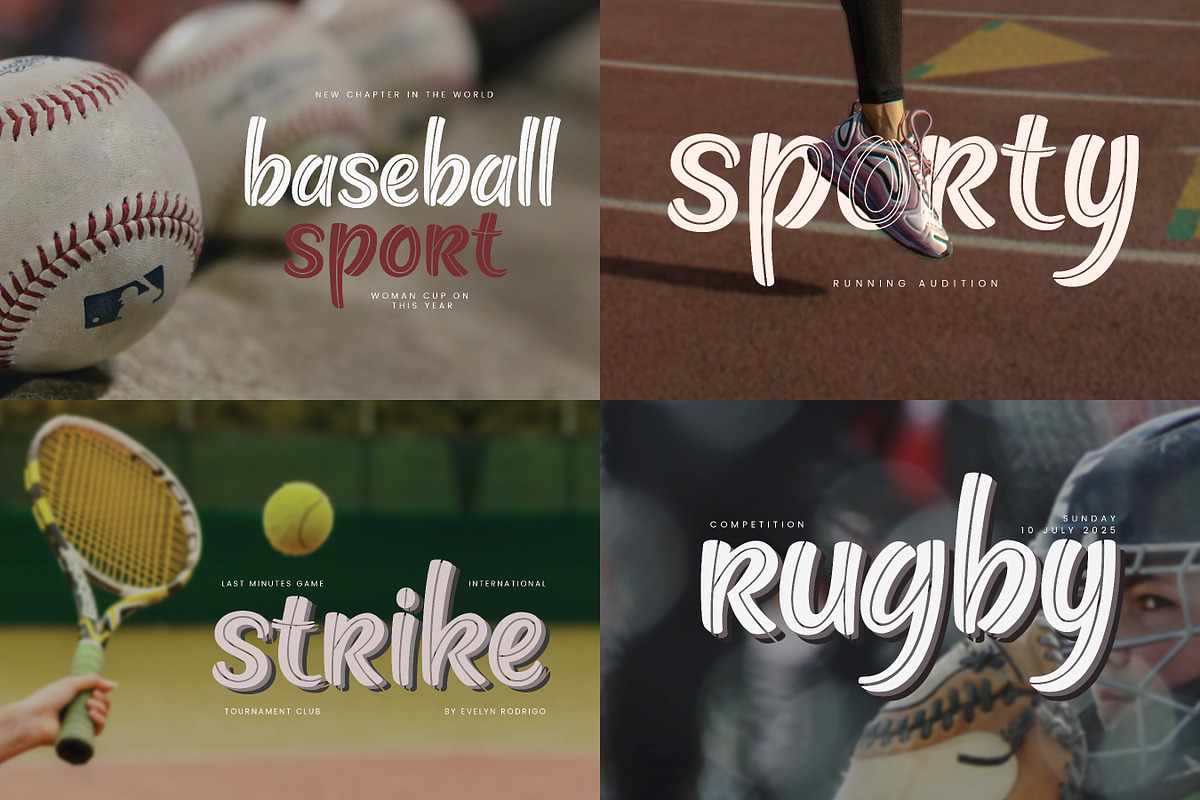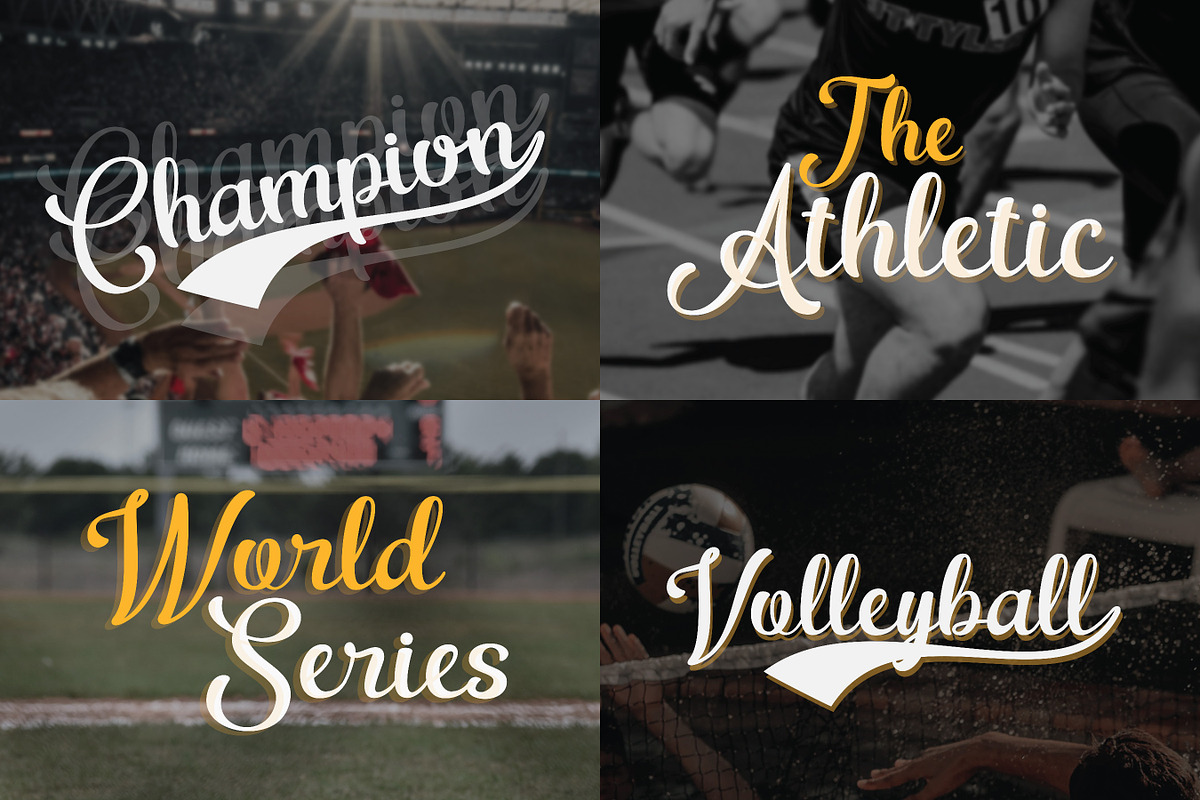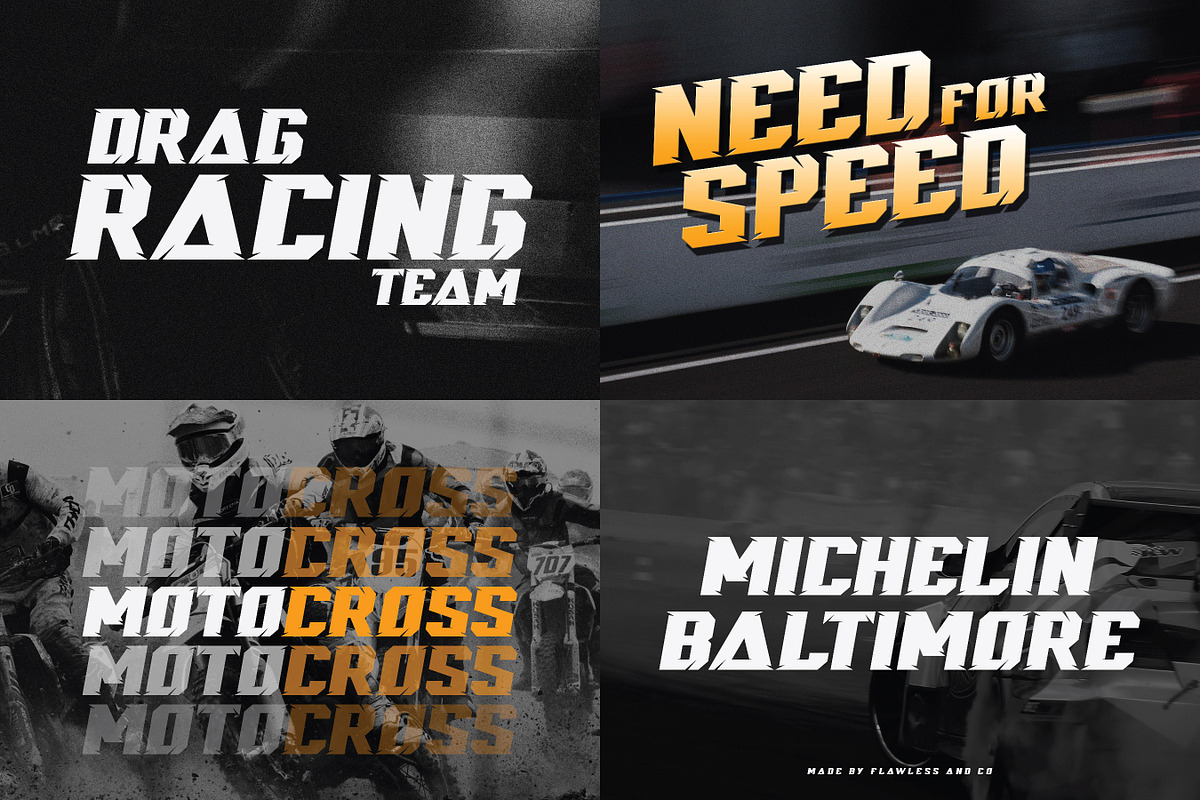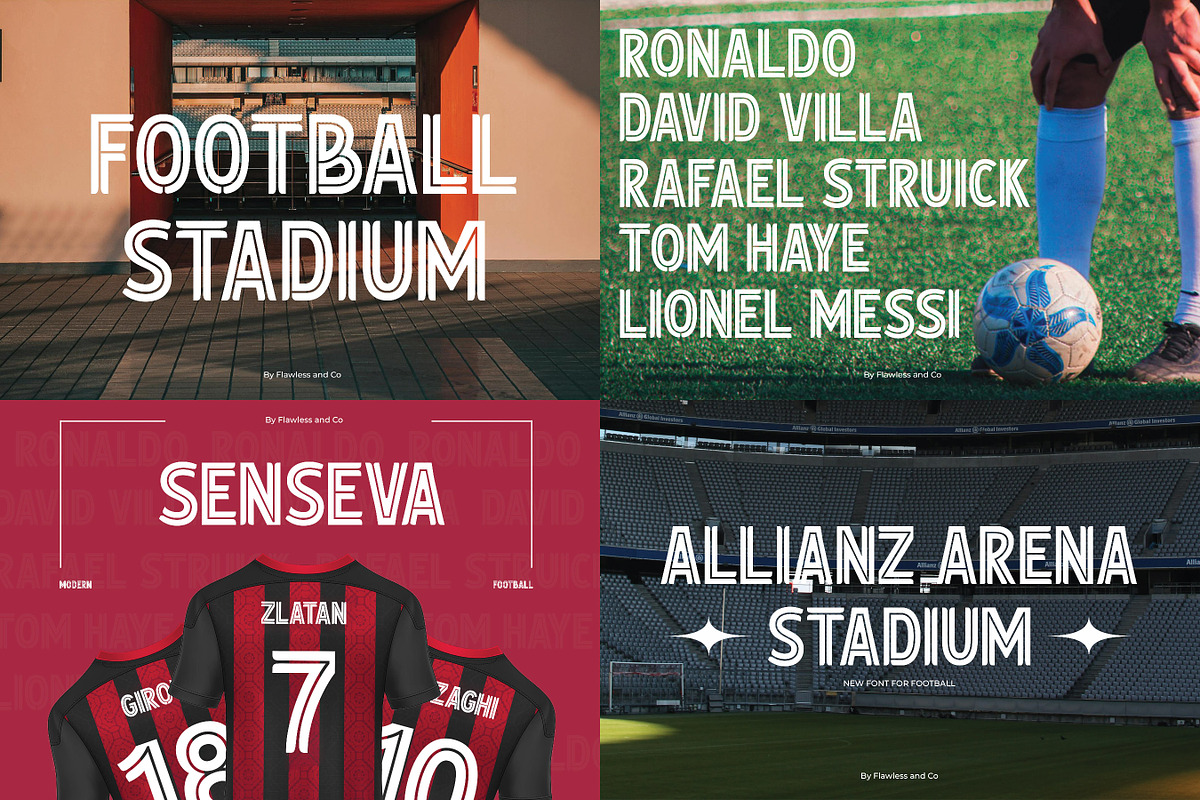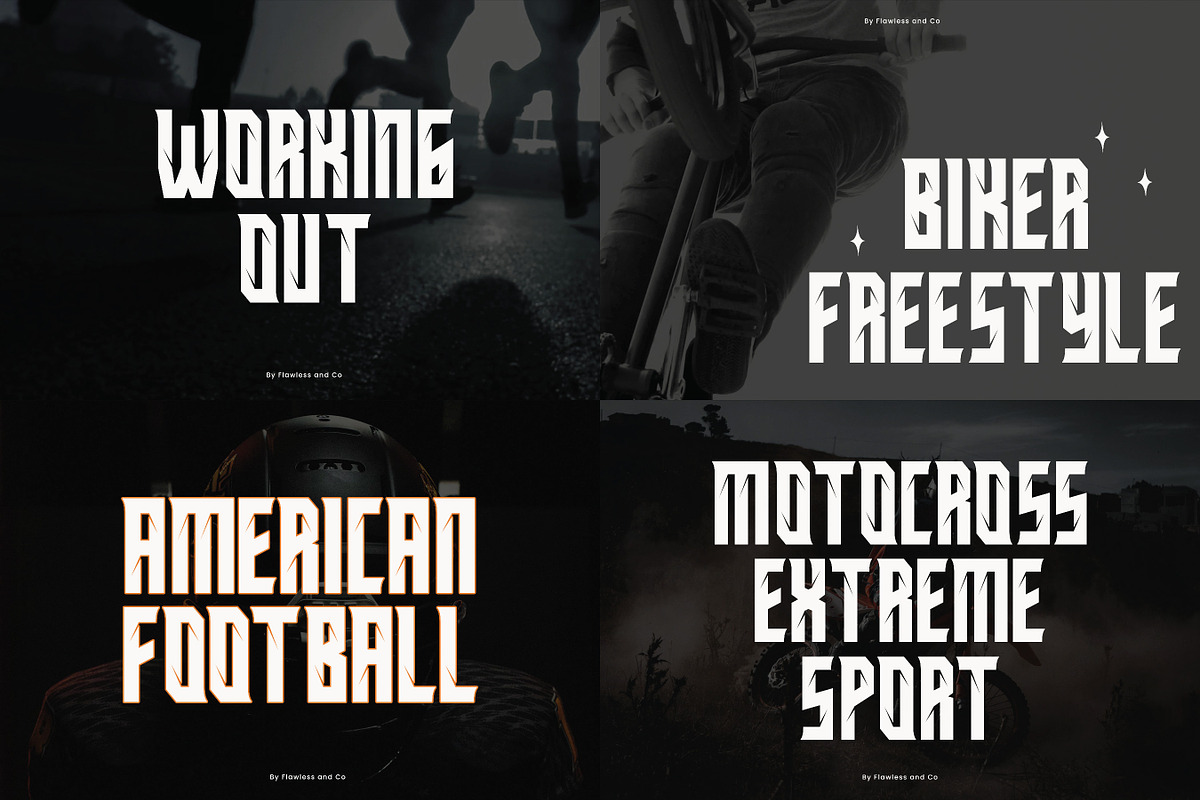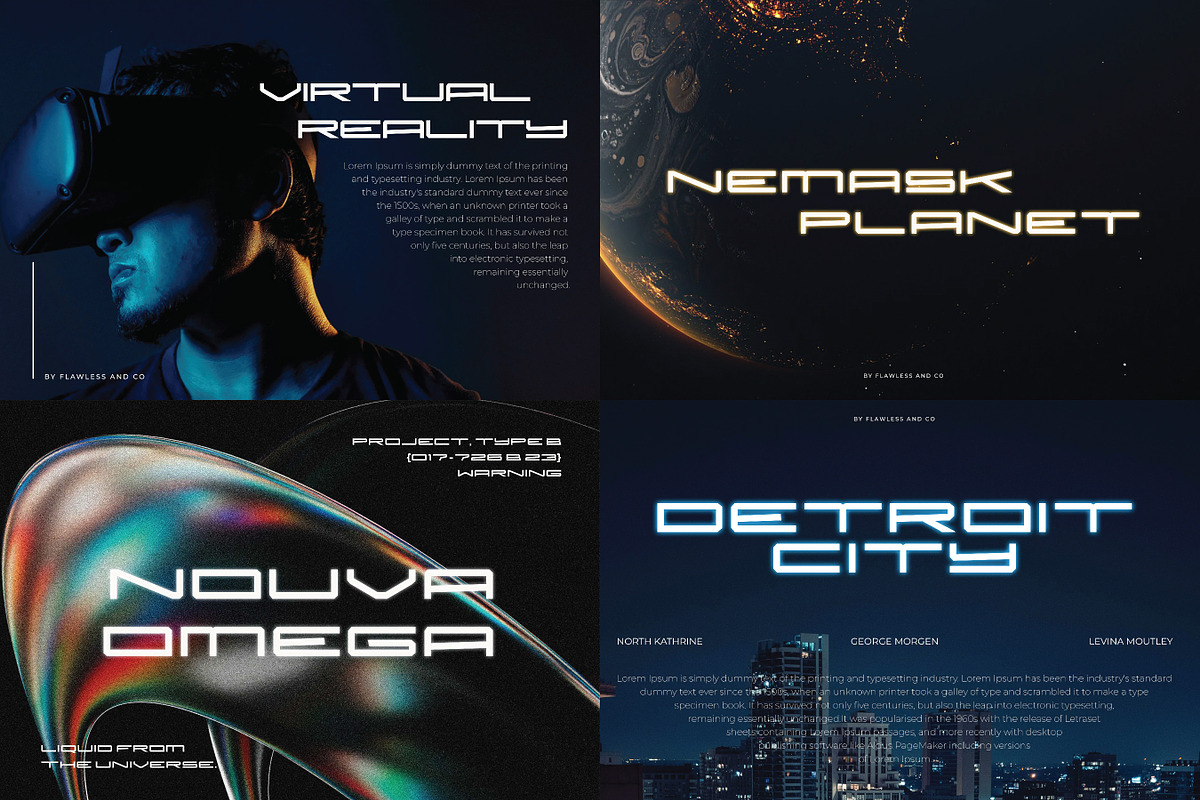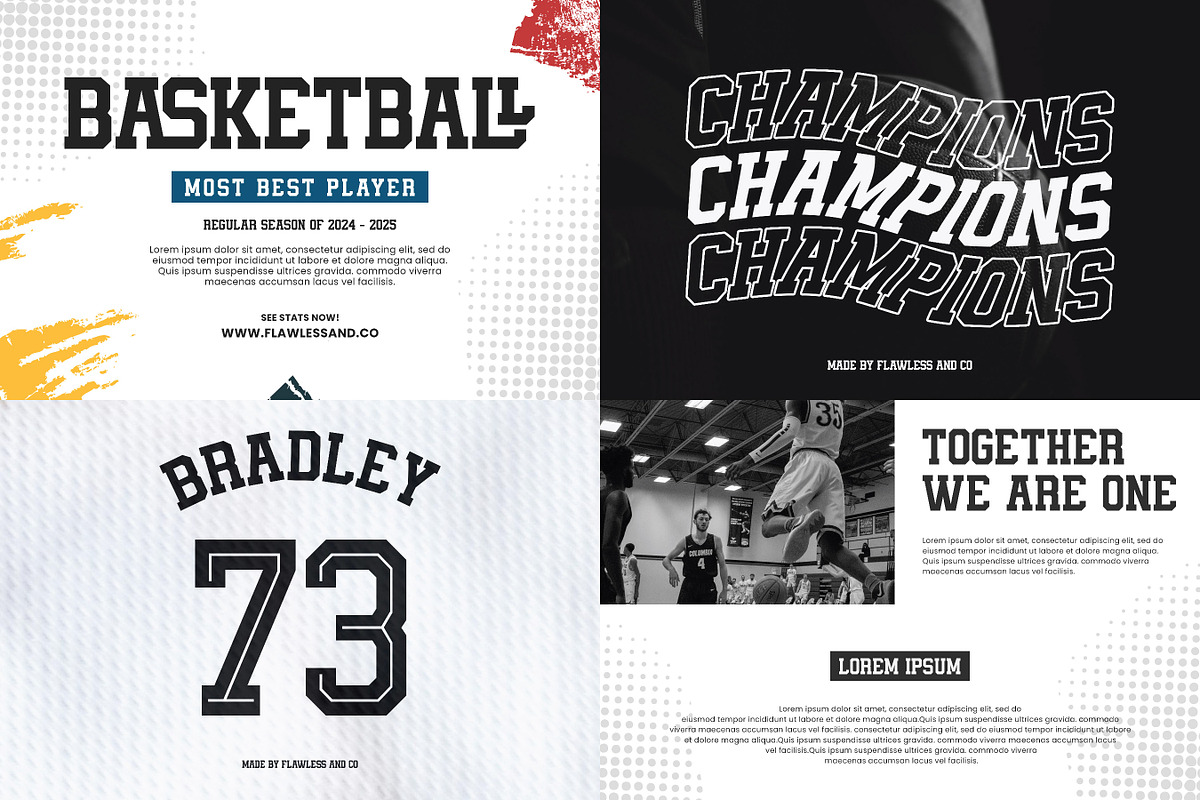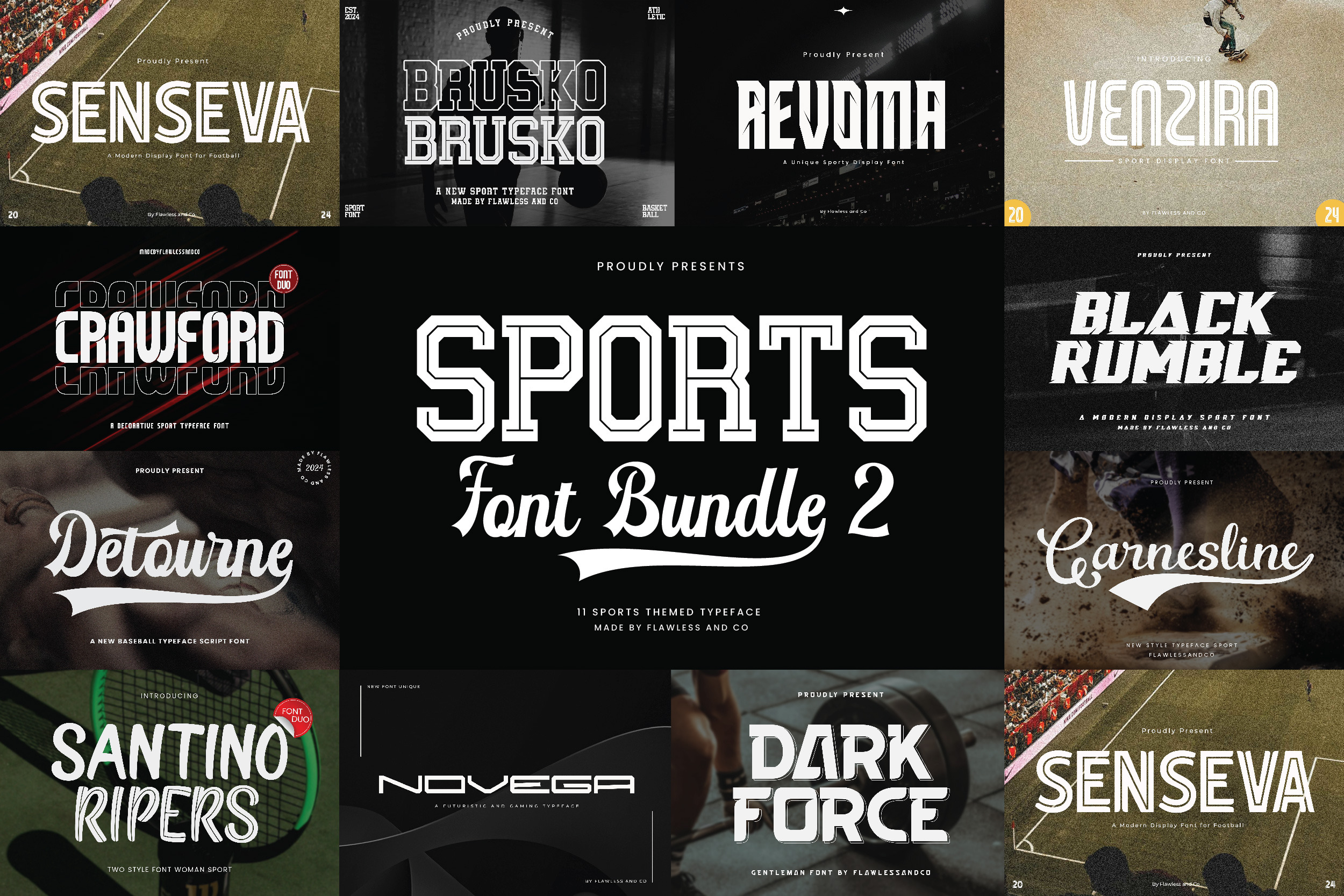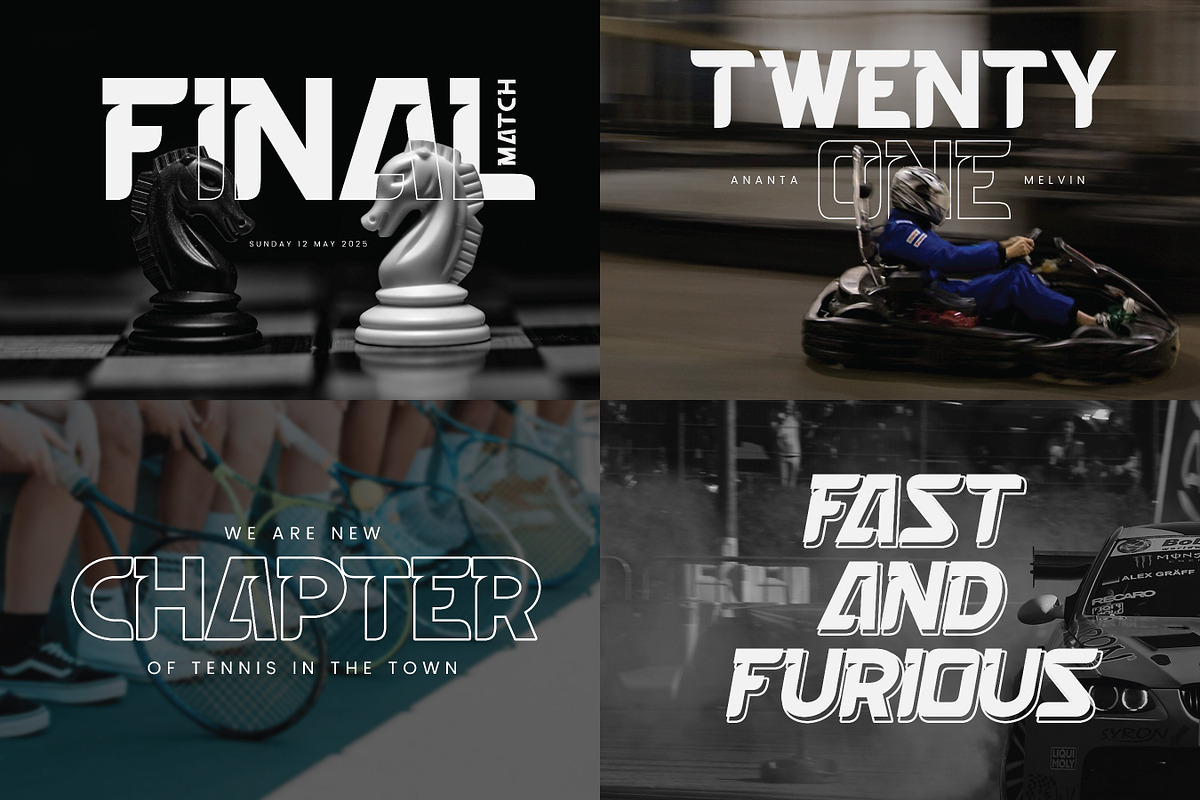
Sports Font Bundle 2
Introducing the "Sport Font Bundle," a collection of dynamic and powerful fonts crafted for sports-themed designs. Whether you’re designing for baseball, football, soccer, or any other sport, this font bundle delivers bold, energetic typography that brings your sports branding, jerseys, posters, and fan merchandise to life.
This bundle include 11 high quality sports fonts. Suitable for any graphic designs such as branding materials, t-shirt, print, business cards, logo, poster, photography, quotes .etc
- Senseva
- Brusko
- Revoma
- Venzira
- Crawford
- Black Rumble
- Detourne
- Garnesline
- Santino Ripers
- Navega
- Dark Force